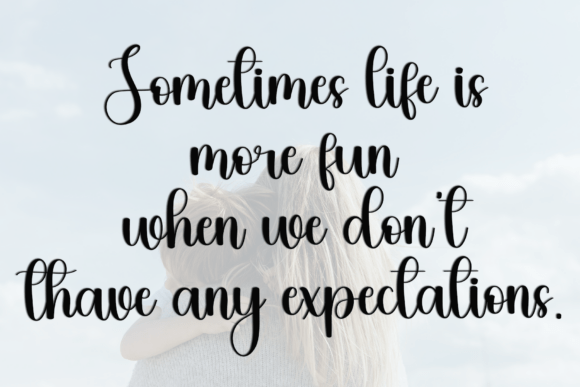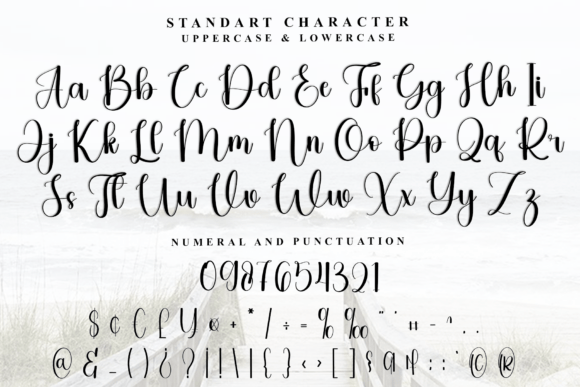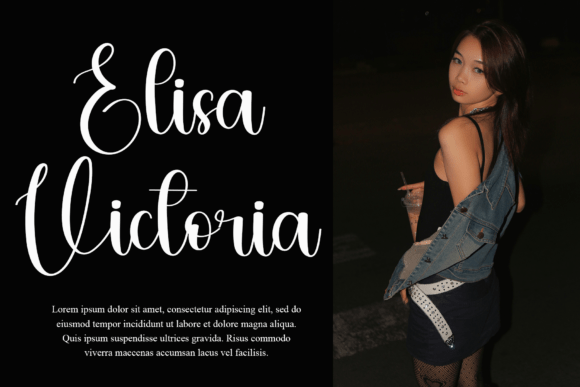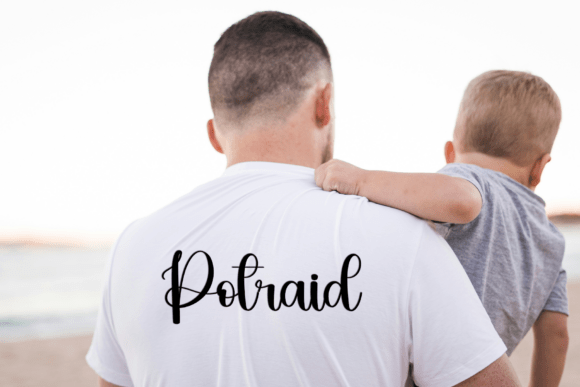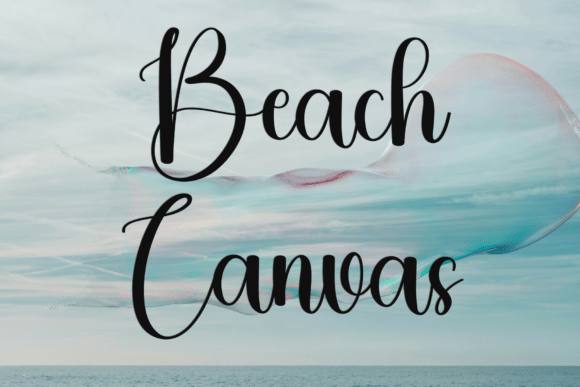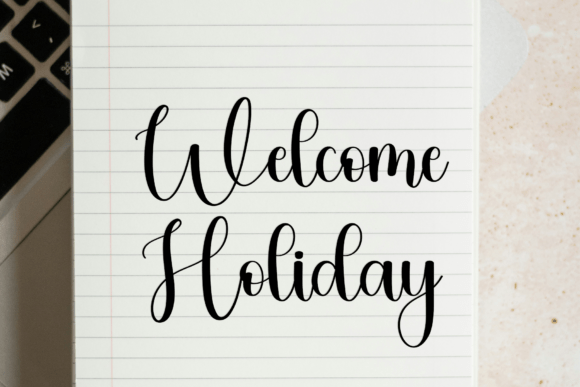
Introducing Calligraphy Font: The Ultimate Holiday Typeface
Are you looking for a font that embodies the spirit of the holiday season? Look no further than Calligraphy Font, a festive and merry typeface that is sure to add a touch of enchantment to your designs. With its decorative elements and whimsical flair, this font is perfect for greeting cards, gift tags, and holiday-themed projects.
The Magic of Calligraphy Font
Calligraphy Font is a beautifully crafted typeface that captures the essence of the holiday season. Its decorative elements, such as intricate swashes and flourishes, add a touch of elegance and sophistication to your designs. The font’s whimsical flair also gives it a playful and cheerful feel, making it perfect for holiday-themed projects.
Calligraphy Font is a versatile typeface that is perfect for designers and crafters alike. Whether you’re creating greeting cards, gift tags, or holiday-themed projects, this font is sure to bring a cheerful and nostalgic ambiance to your words. Its PUA encoding also makes it easy to access all of the amazing glyphs and ligatures, allowing you to create beautiful and intricate designs with ease.
Key Features of Calligraphy Font
- PUA Encoding: Calligraphy Font is PUA encoded, which means you can access all of the amazing glyphs and ligatures with ease.
- Decorative Elements: The font features intricate swashes and flourishes that add a touch of elegance and sophistication to your designs.
- Whimsical Flair: The font’s whimsical flair gives it a playful and cheerful feel, making it perfect for holiday-themed projects.
- Versatile: Calligraphy Font is a versatile typeface that is perfect for a variety of design projects, including greeting cards, gift tags, and holiday-themed projects.
Tips for Using Calligraphy Font
Here are a few tips for using Calligraphy Font in your designs:
- Use it for Headings: Calligraphy Font is perfect for headings and titles, where its decorative elements and whimsical flair can really shine.
- Pair it with Other Fonts: Try pairing Calligraphy Font with other fonts to create a unique and interesting look.
- Experiment with Glyphs and Ligatures: Don’t be afraid to experiment with the font’s glyphs and ligatures to add some extra flair to your designs.
Calligraphy Font is a beautiful and festive typeface that is sure to add a touch of enchantment to your designs. With its decorative elements and whimsical flair, it’s perfect for holiday-themed projects, greeting cards, and gift tags. Its PUA encoding also makes it easy to access all of the amazing glyphs and ligatures, allowing you to create beautiful and intricate designs with ease. So why wait? Let your typography shine with the magic of Calligraphy Font!
Get Creative with Calligraphy Font
Whether you’re a designer or crafter, Calligraphy Font is the perfect addition to your toolkit. So why not get creative and see what amazing designs you can come up with? Here are a few ideas to get you started:
- Create Holiday-Themed Greeting Cards: Use Calligraphy Font to create beautiful and festive holiday-themed greeting cards.
- Make Gift Tags: Add a touch of elegance and sophistication to your gift tags with Calligraphy Font.
- Design Holiday-Themed Projects: Use Calligraphy Font to create holiday-themed projects, such as decorations, invitations, and more.